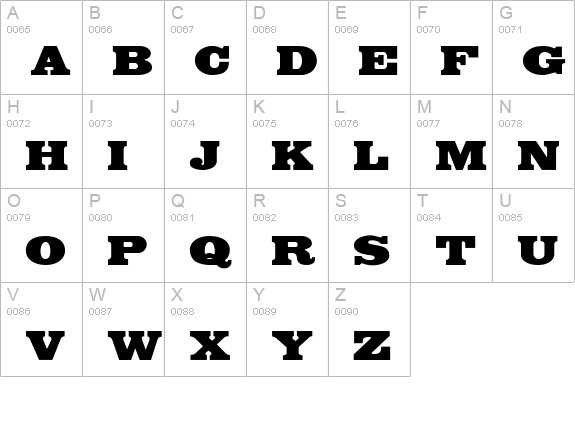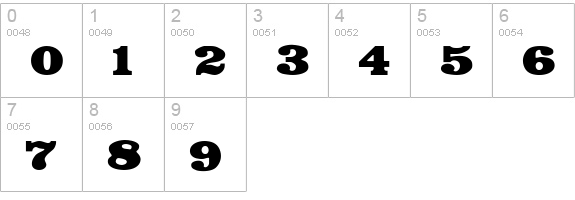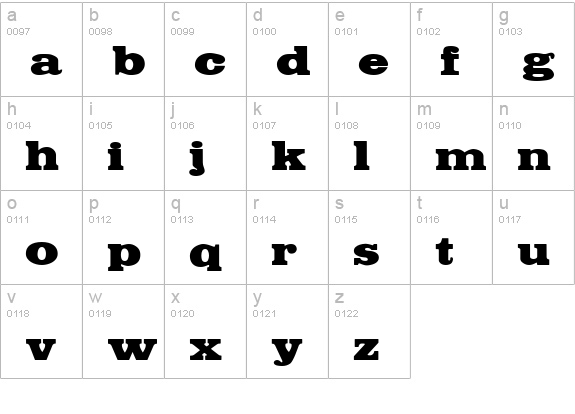
The Bodega Display SSi font is a versatile and stylish typeface that exudes elegance and sophistication. Its sleek lines and modern design make it perfect for a wide range of design projects, from branding and advertising to packaging and web design. This font is sure to make a statement and capture the attention of your audience. Best of all, the Bodega Display SSi font is completely free to use! You can download it for free at FontsMarket.com and start using it in your projects right away. Don't miss out on this fantastic opportunity to enhance your designs with this beautiful font.